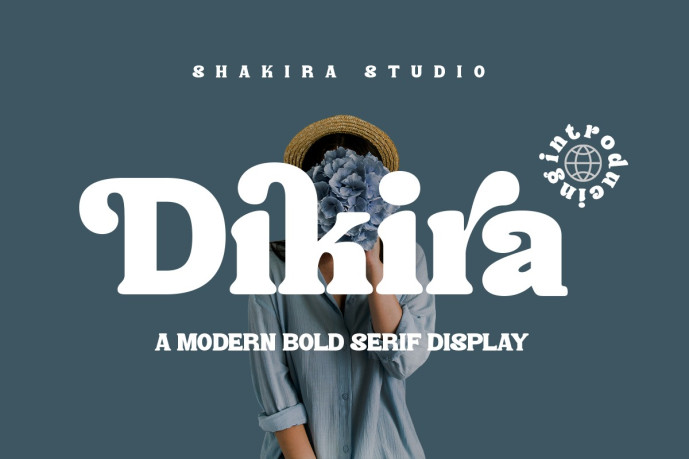
Dikira Serif Font
Designer: Shakira Studio
Dikira Serif Font is a bold serif typeface combining retro personality and modern charm. It’s ideal for vintage packaging, poster headlines, logo design, and creative branding projects. With thick curves, playful terminals, and smooth balance, Dikira captures nostalgia and confidence in one design.